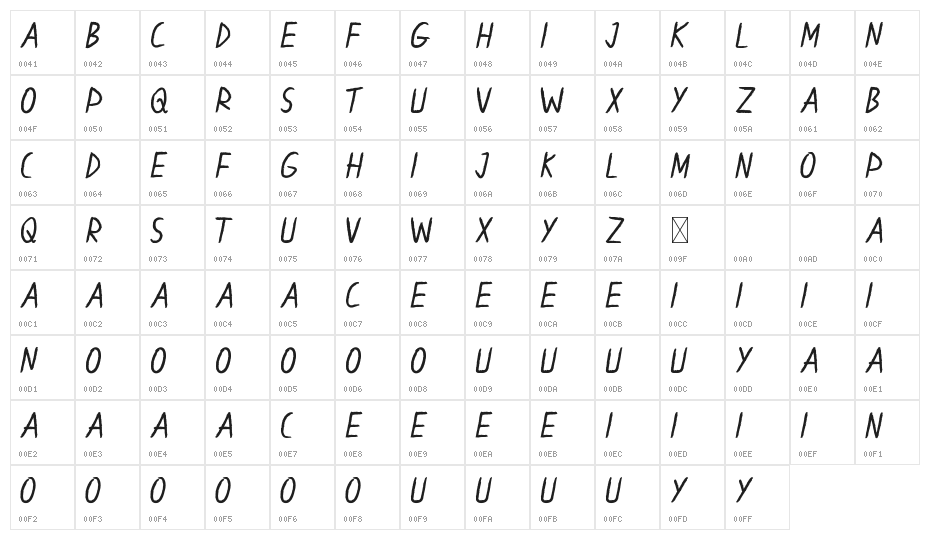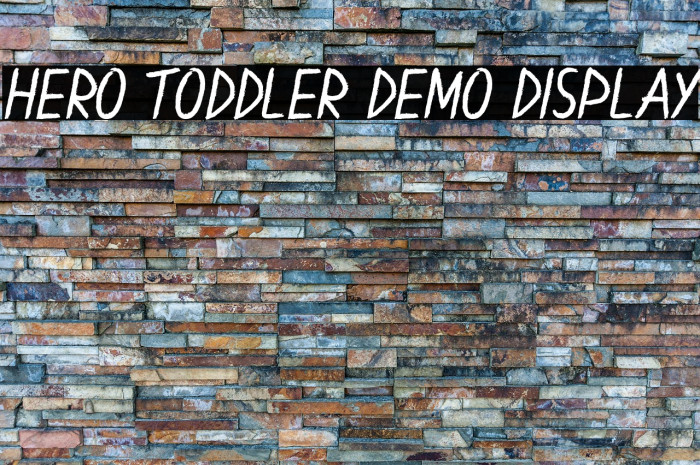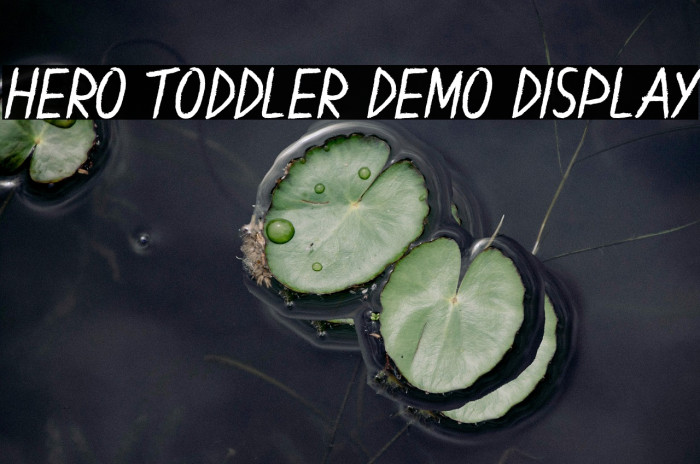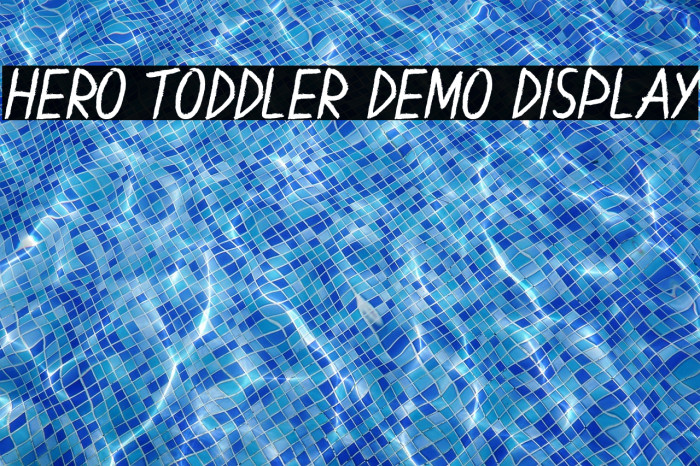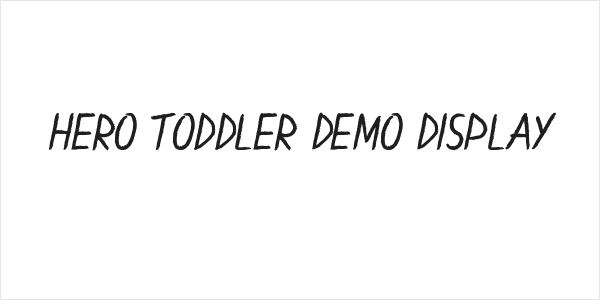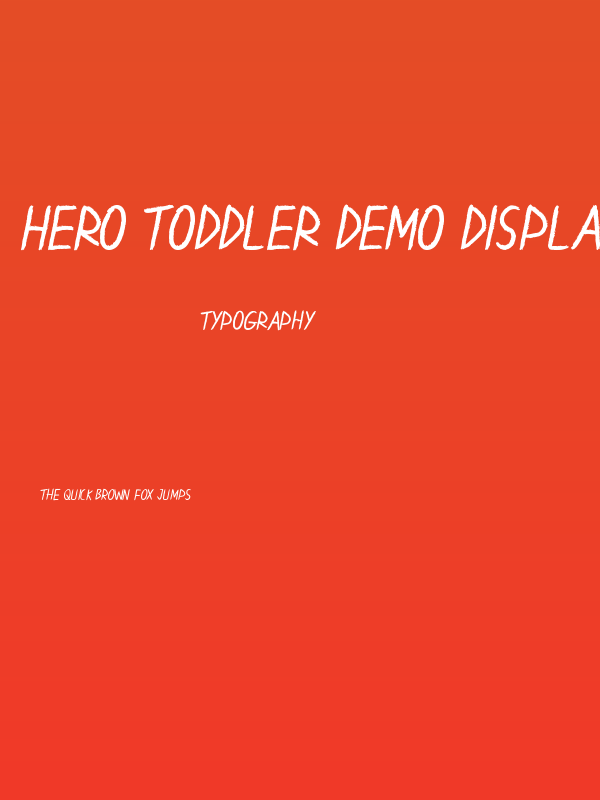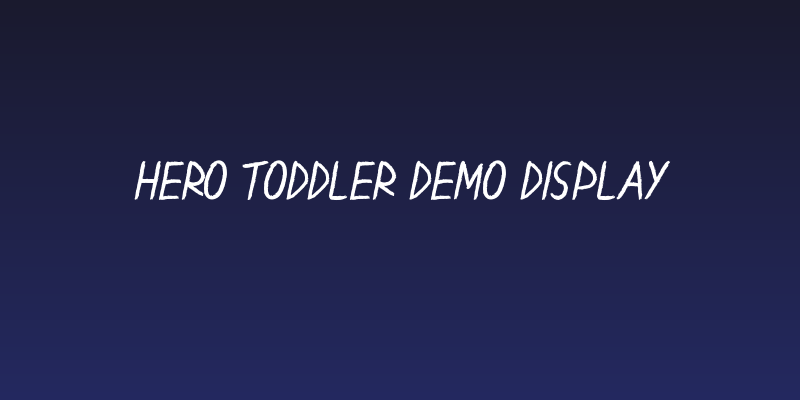
Hero Toddler Demo Display Font
Hero Toddler Demo Display Description
This font features a playful and energetic handwritten style, characterized by its dynamic and slightly irregular strokes. The letters are bold and slightly slanted, giving a sense of movement and spontaneity. The uppercase letters are consistent in height, while the lowercase letters maintain a casual and approachable feel. The overall appearance is informal, making it suitable for projects that require a personal touch. The strokes are moderately thick, providing good readability while maintaining a lively aesthetic. The font's unique charm lies in its ability to convey a sense of fun and creativity, making it ideal for designs that aim to capture attention and evoke a sense of joy.
| Overall Style | Playful, Energetic |
| Proposed Projects | Ideal for children's book covers, playful branding, greeting cards, and creative posters. |